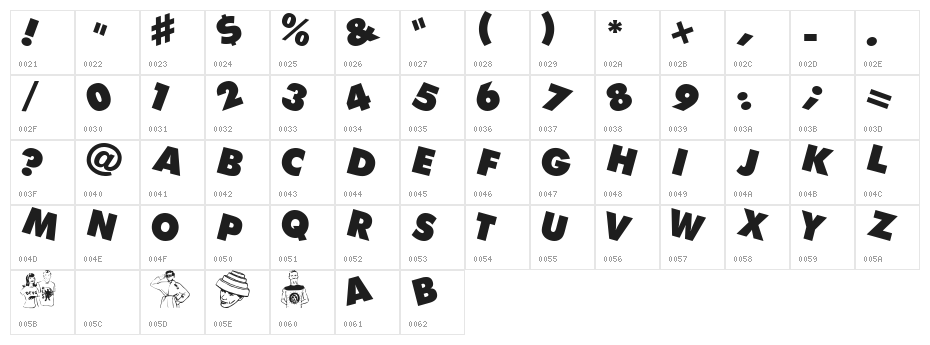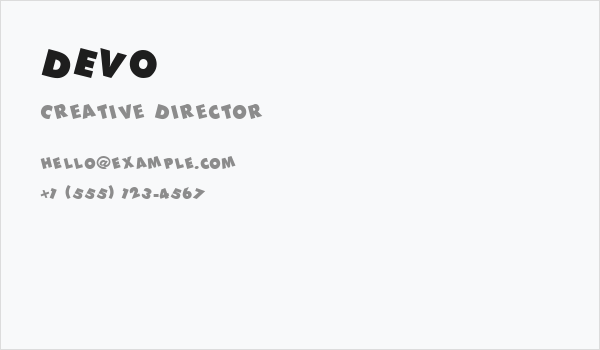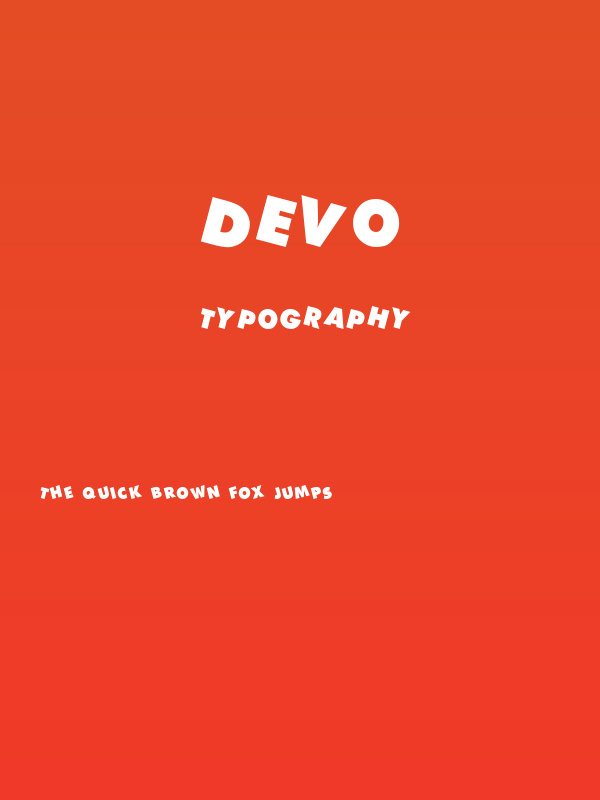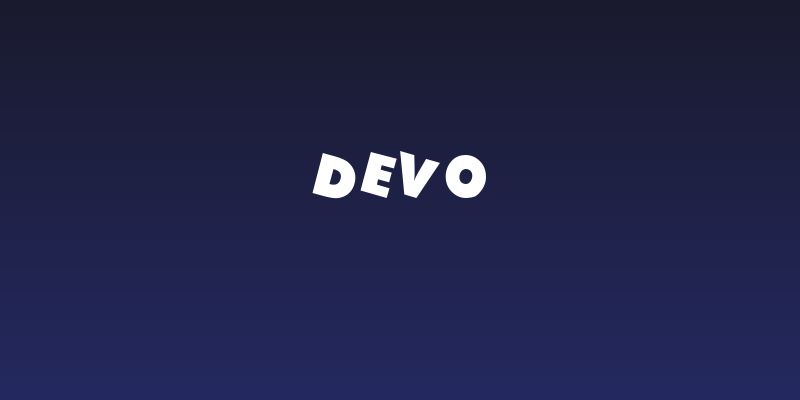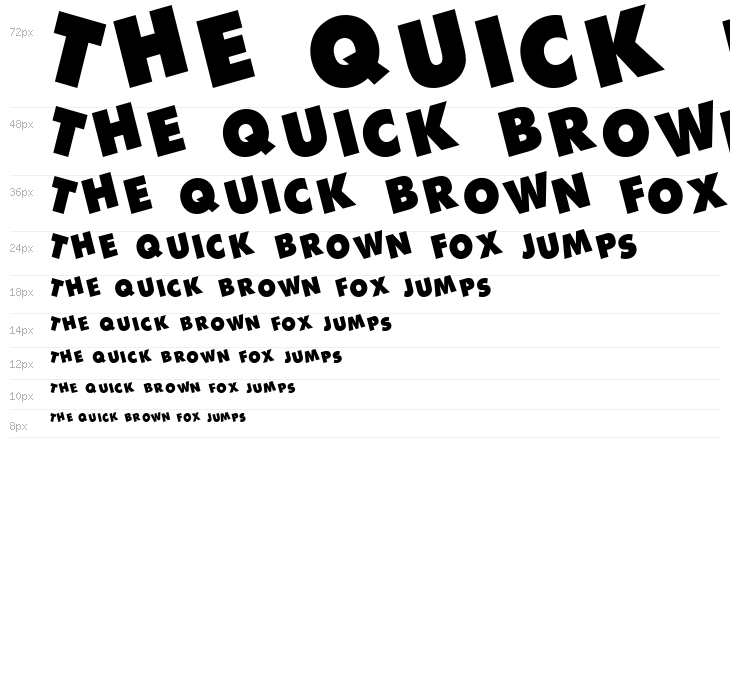
DEVO Font
DEVO Description
This bold and dynamic font features a playful, slanted design that gives it a sense of movement and energy. The letters are thick and robust, with a slight tilt that adds a unique character to each glyph. The font is highly legible, making it suitable for various display purposes. Its boldness and distinctive style make it stand out, while the consistent stroke width ensures readability. The numbers and special characters maintain the same energetic style, providing a cohesive look across all characters.
| Proposed Projects | Ideal for posters, headlines, branding, and any project that requires a bold and energetic typeface. |